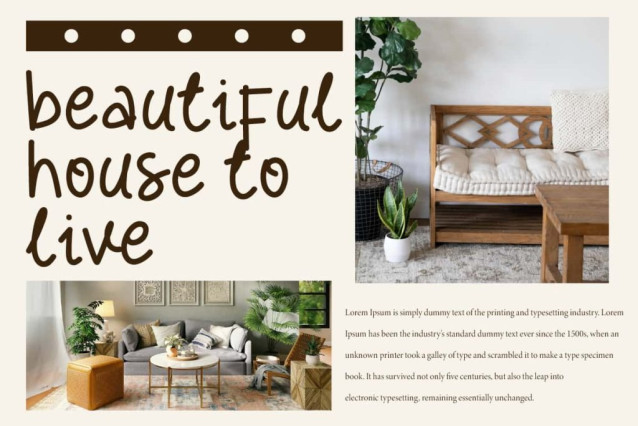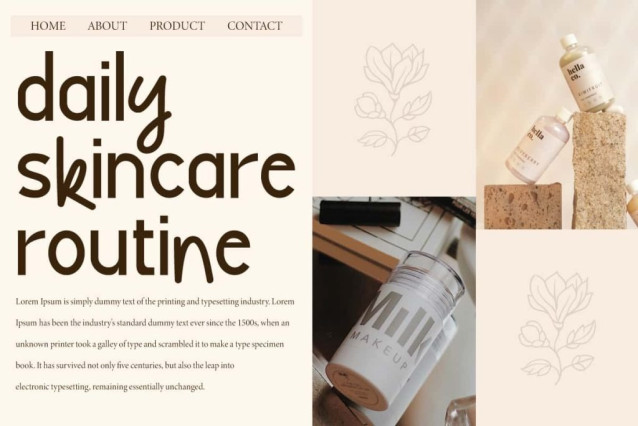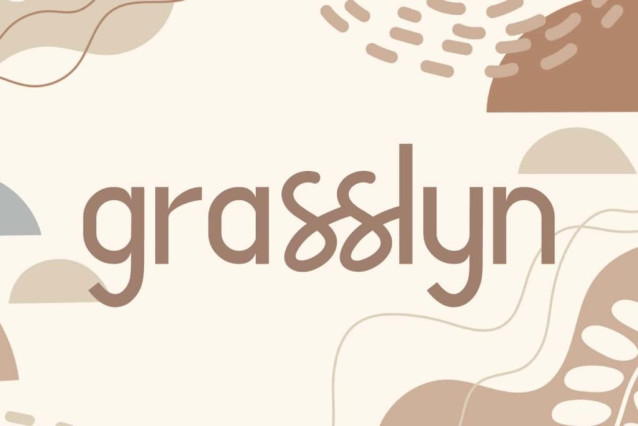
Grasslyn Font
Grasslyn Font is a fun and unique display font. The neatness that is seen will make it easier to read. Suitable for any creative design, such as blogs, cover, headers, headline, label tag, logo, mockup, poster, printed materials, product packaging, quotes, signage, stickers, titles, template, website, and more.
Grasslyn Font includes the full set of basic characters in lowercase for both Uppercase and Lowercase Letters, Numbers, Punctuation, and Symbols. This font is perfectly made to present interesting innovations that are different from the usual. Very suitable for use in advertising, boutique, home furniture, printing, publishing, skincare, writer, etc.